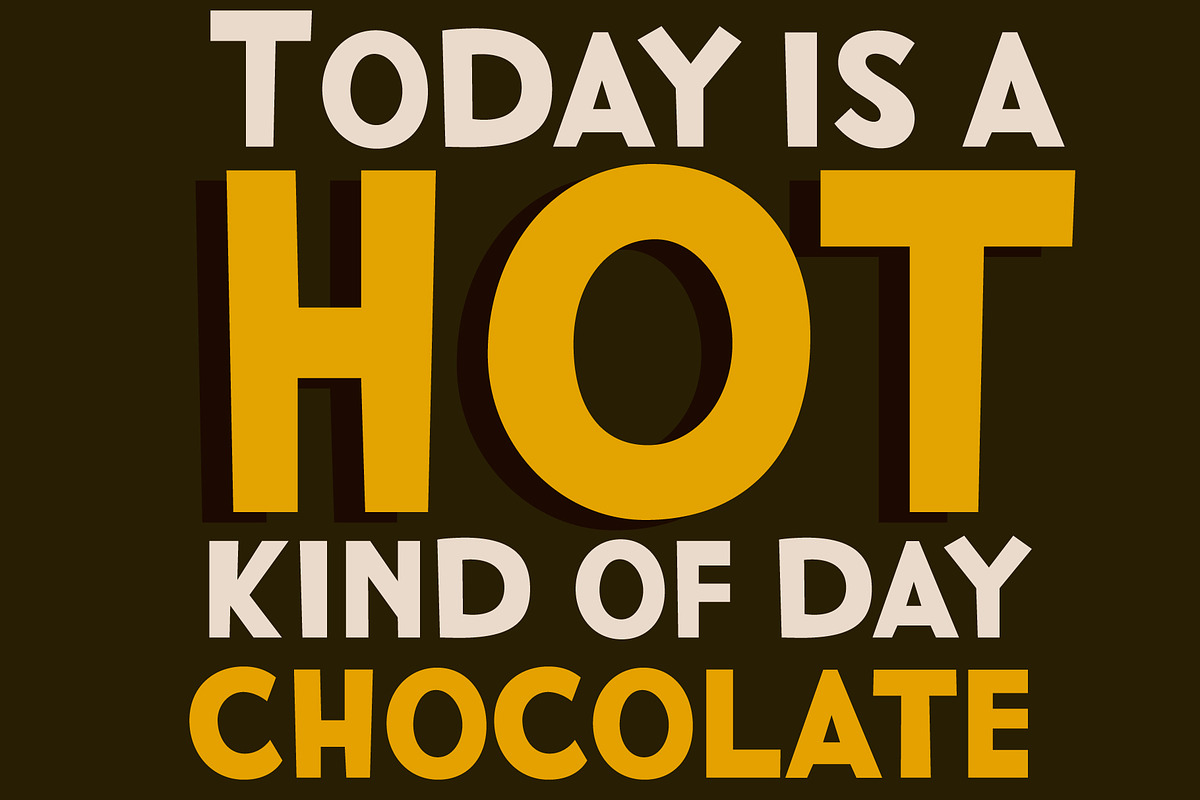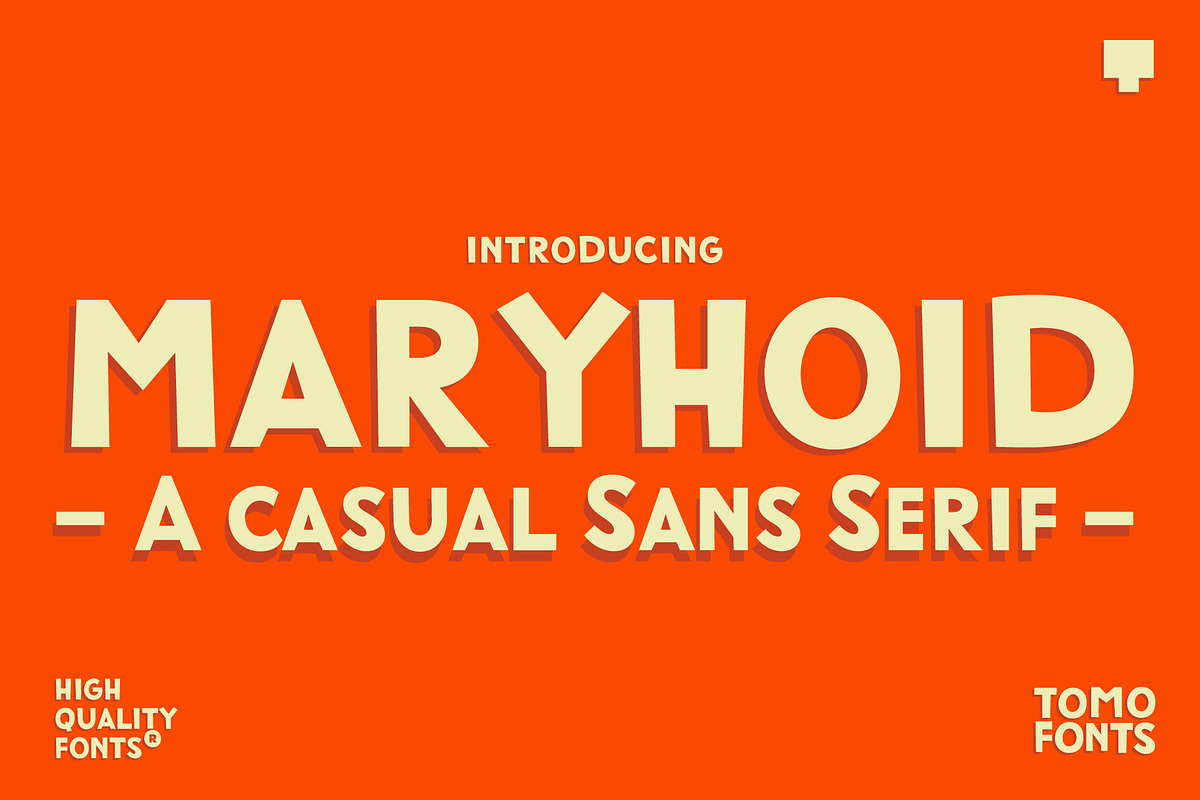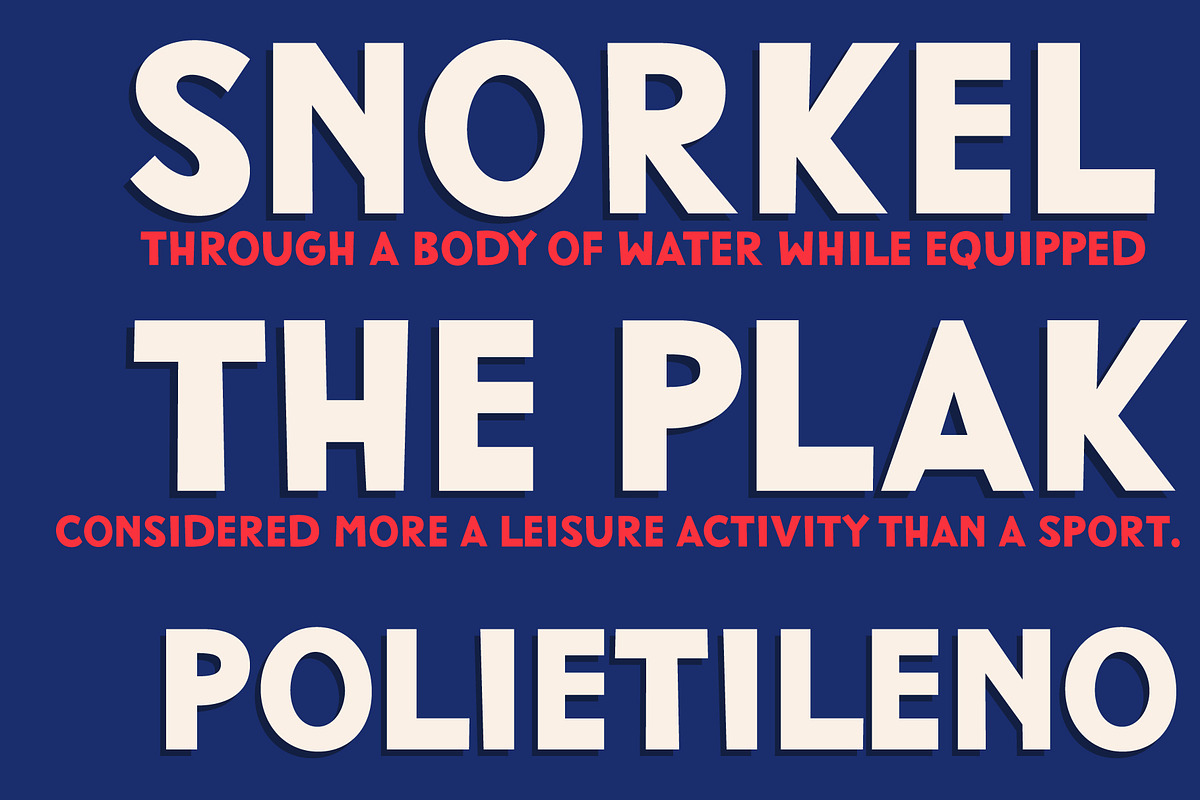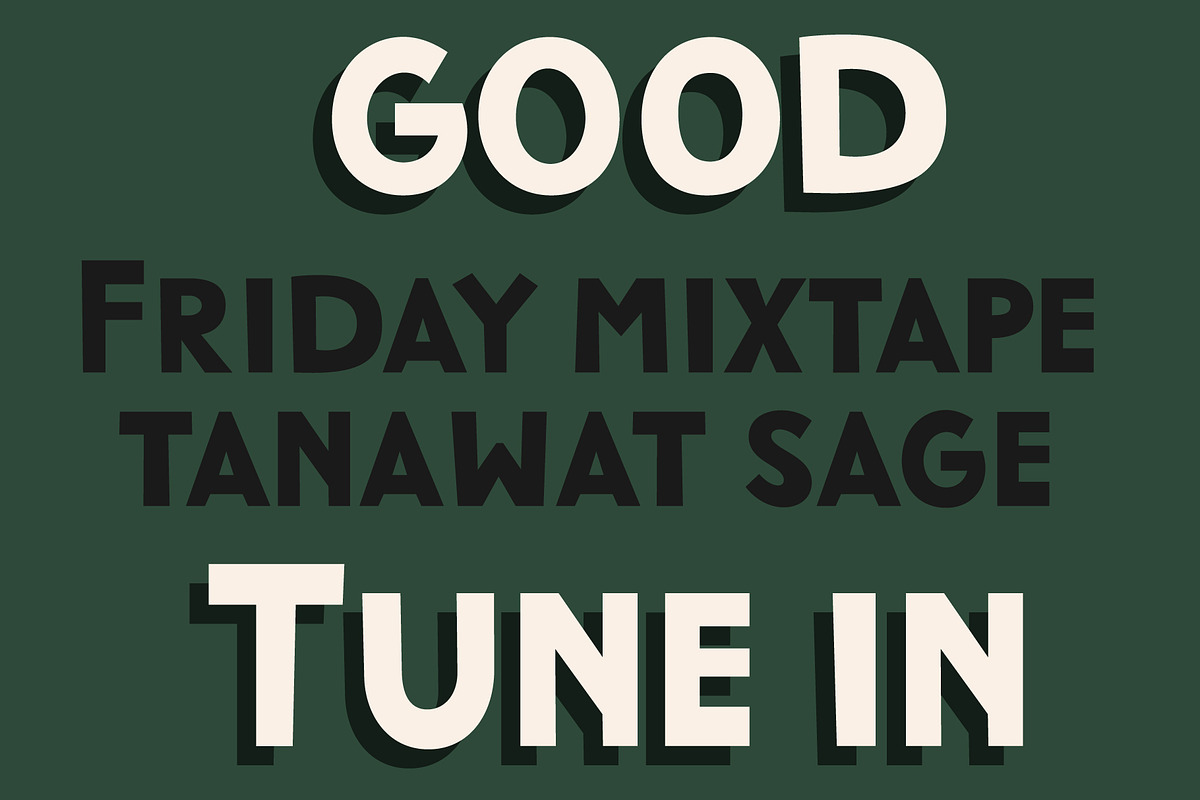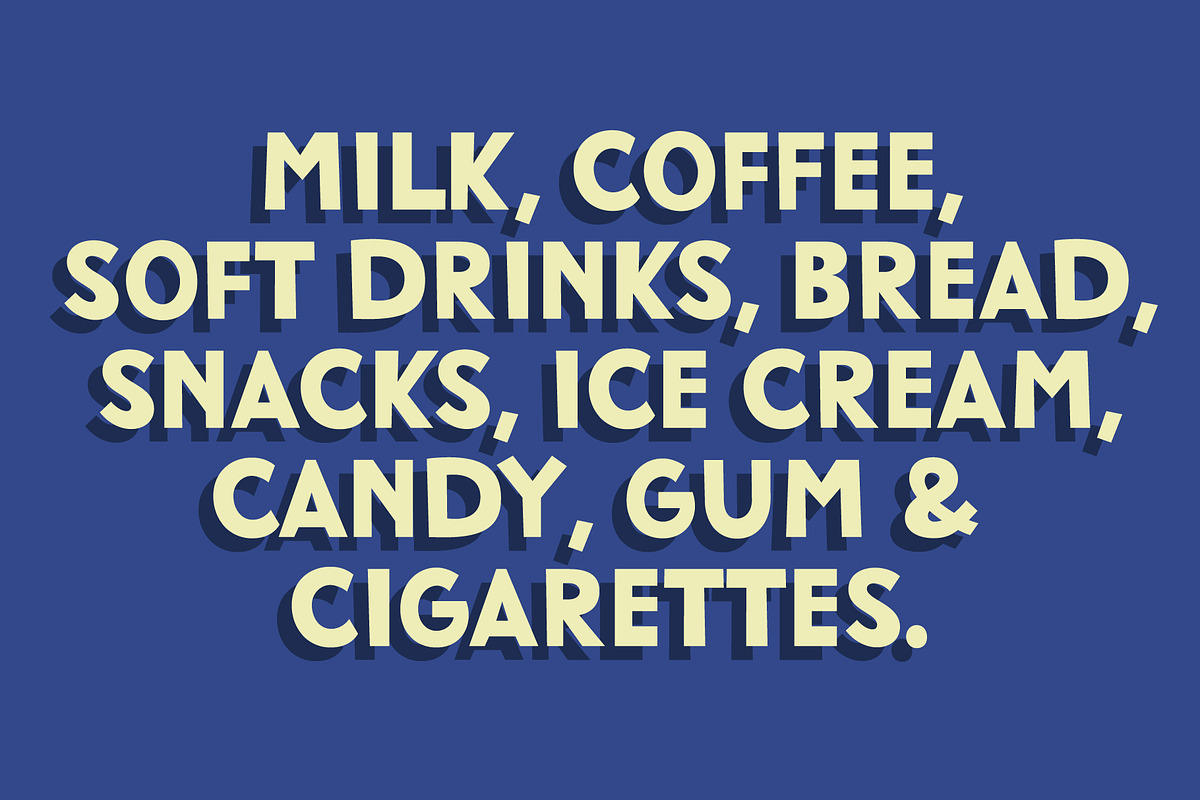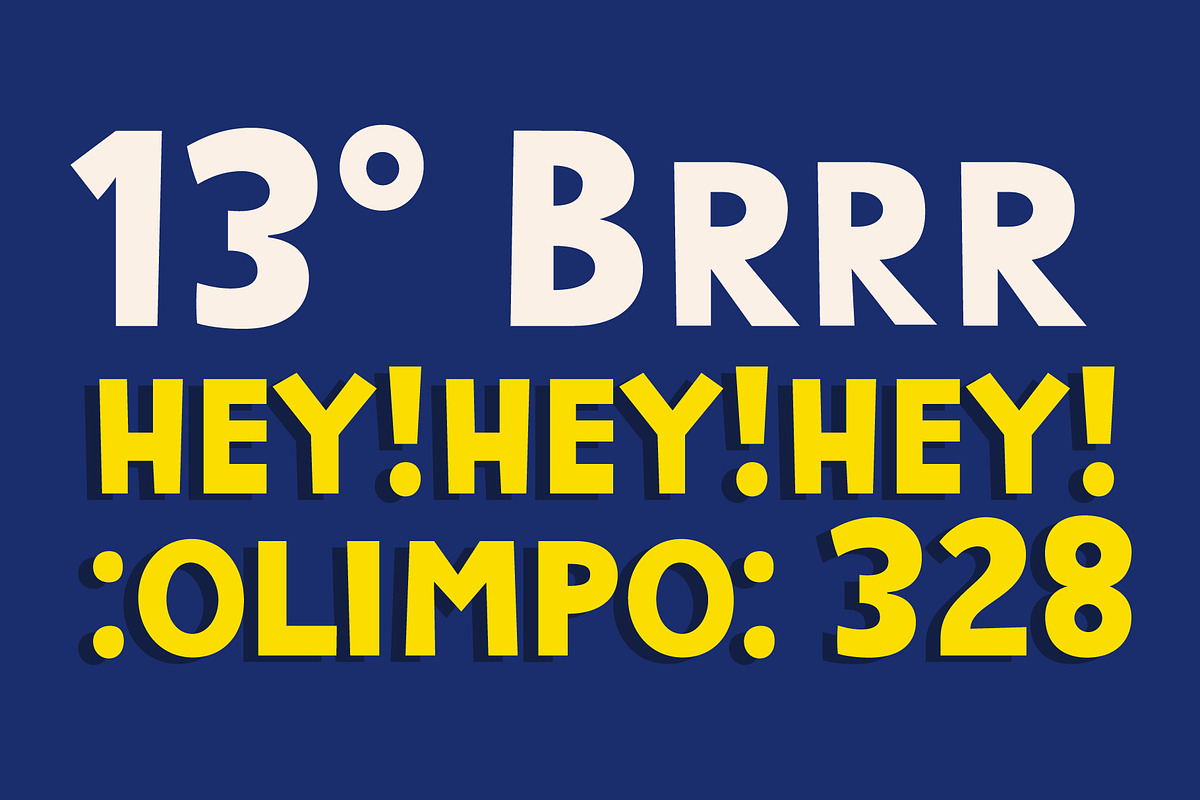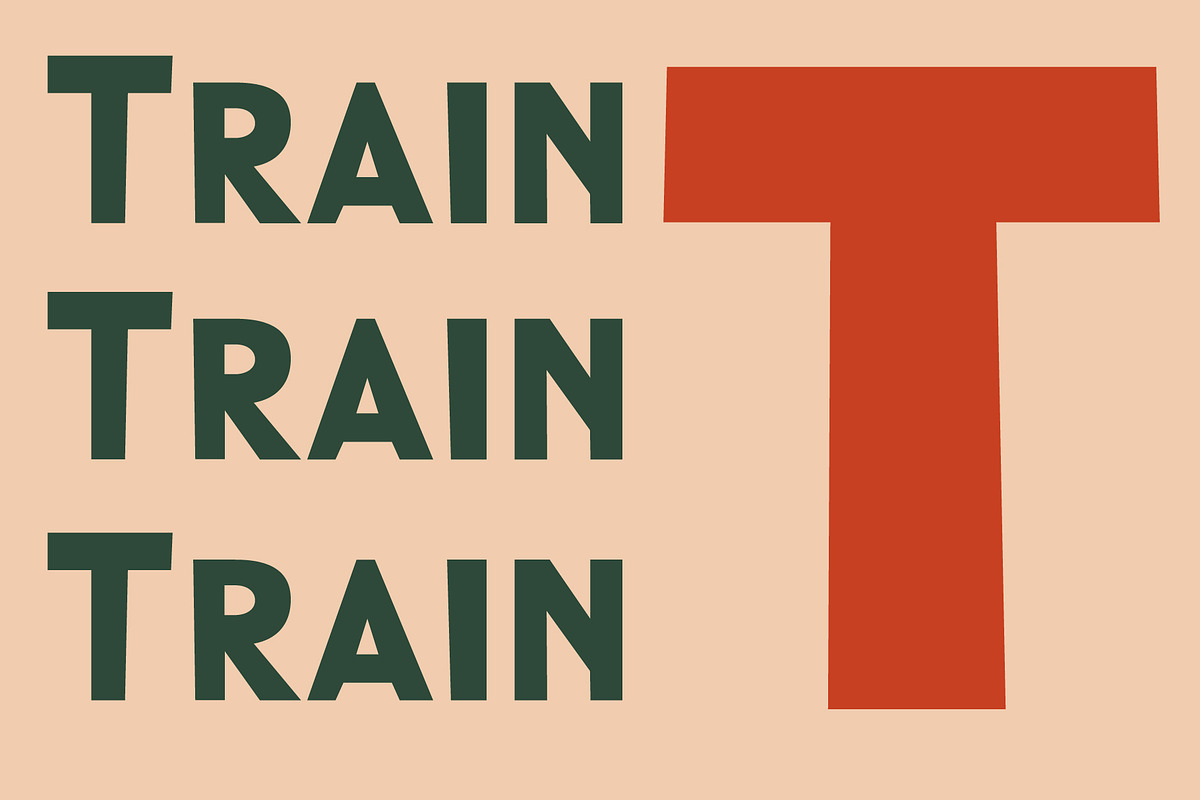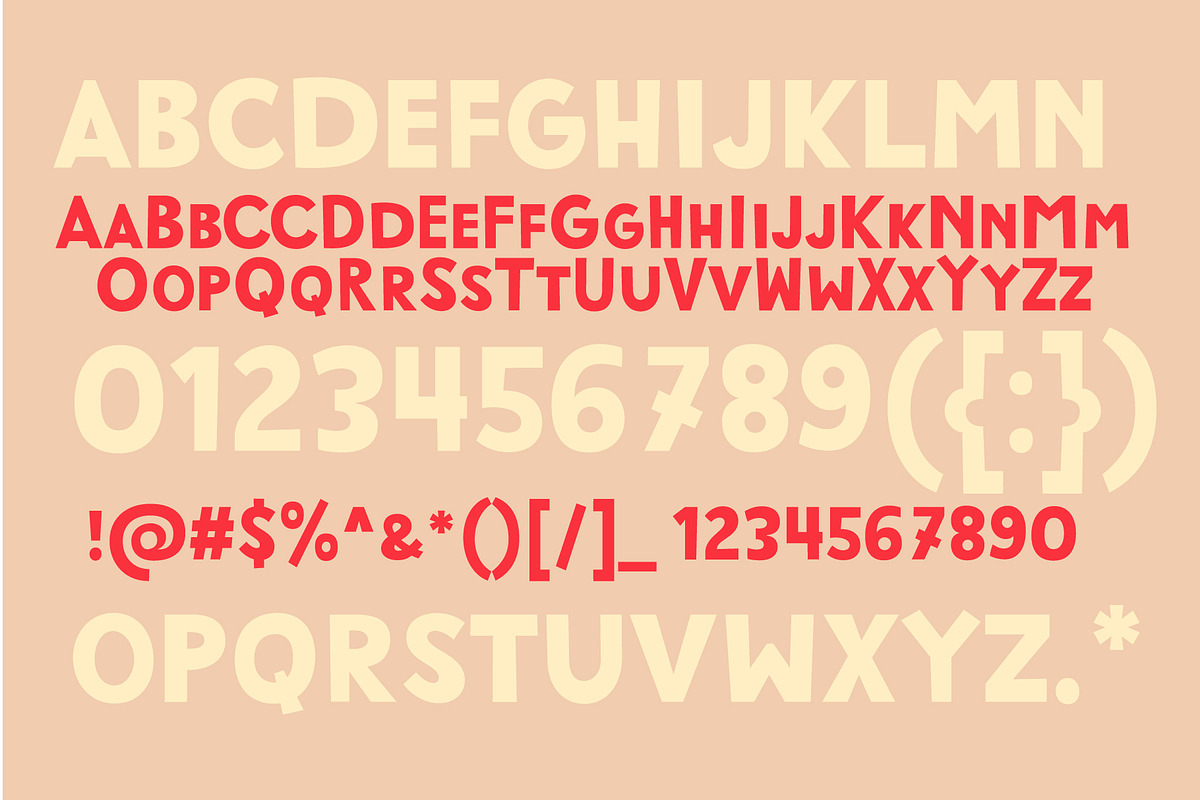
TOMO Maryhoid
Maryhoid is a retro fat face designed by TOMO FONTS. It shapes very nice headlines!
TOMO Maryhoid by TOMO Fonts fits naturally into Branding, posters, packaging, typography.